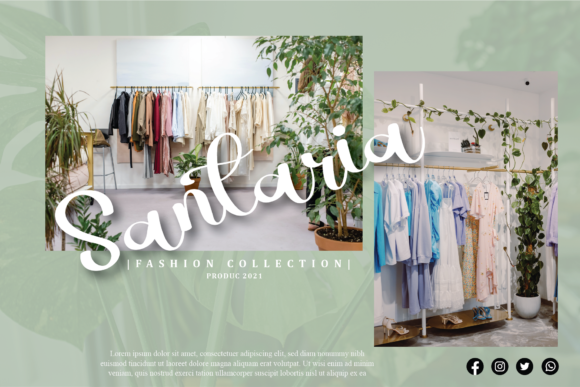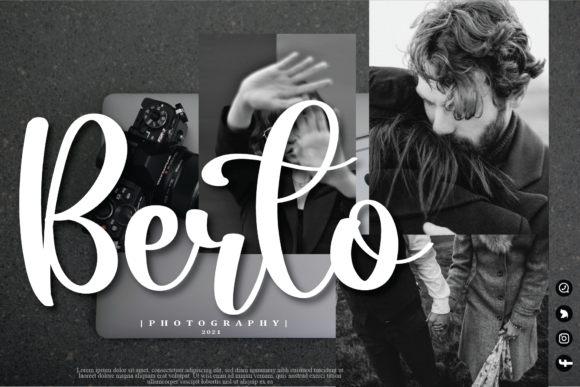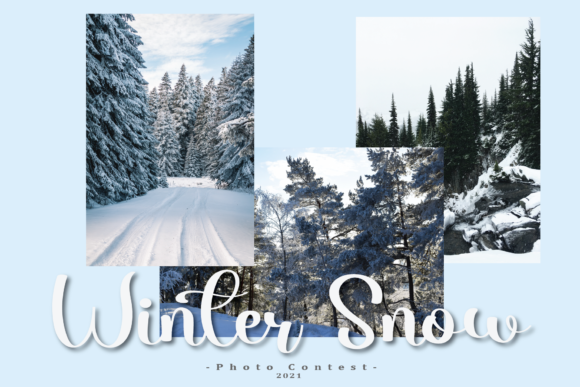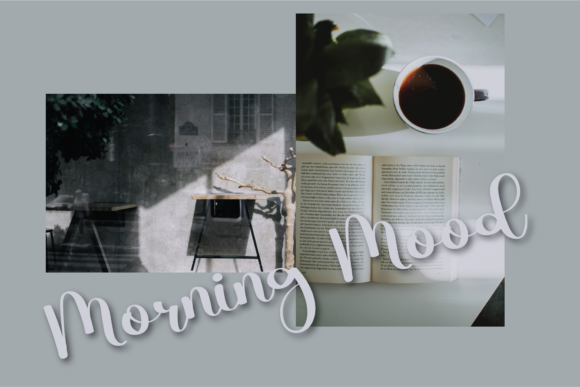
Sinterklas Font
About Sinterklas Font
Sinterklas is a beautiful and refined script font. It has a classy, elegant and modern look that can be used for logos, branding, invitations, stationery, wedding designs, social media posts, and much more!